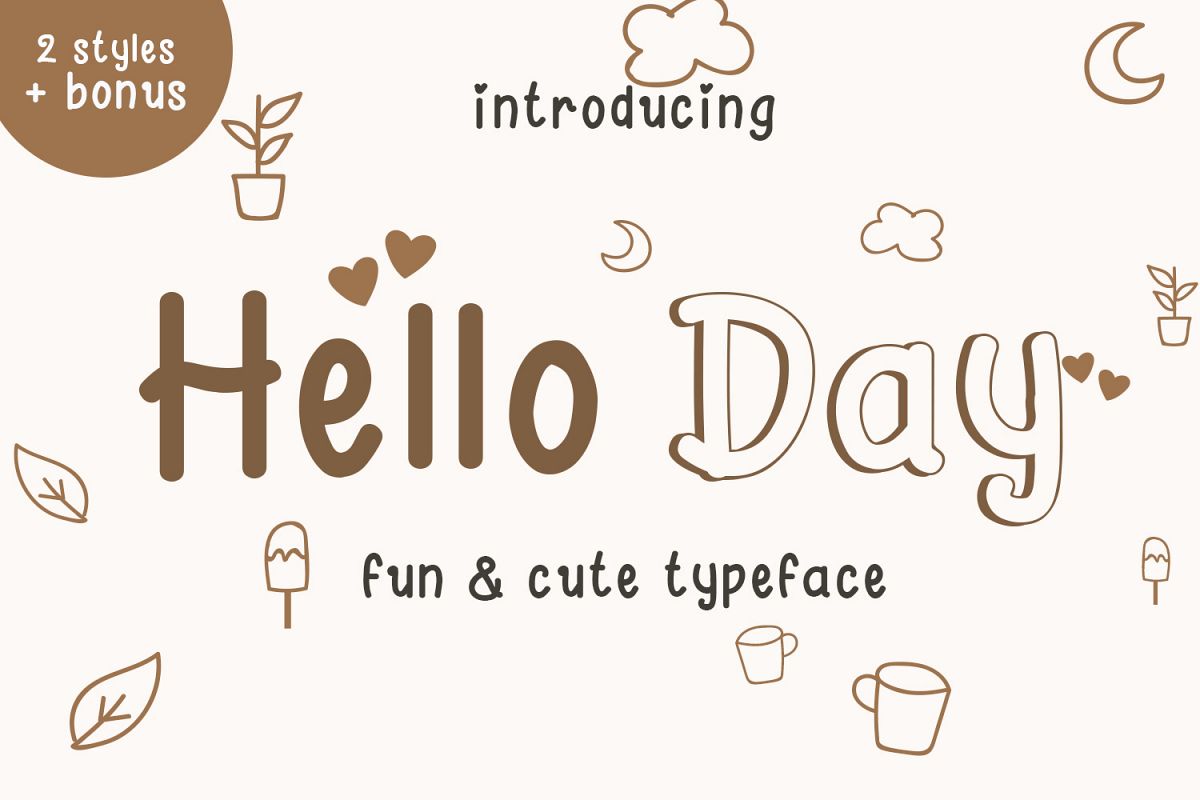
Hello Day - A Fun and Cute Font
Hello Day is cute handwritten style font. It has 2 style, regular and shadow. You can also combine between Hello Day regular and Hello Day Shadow to make unique and cool looking. Suitable for any project with fun style. Hello Day  also has dingbats font as a bonus.